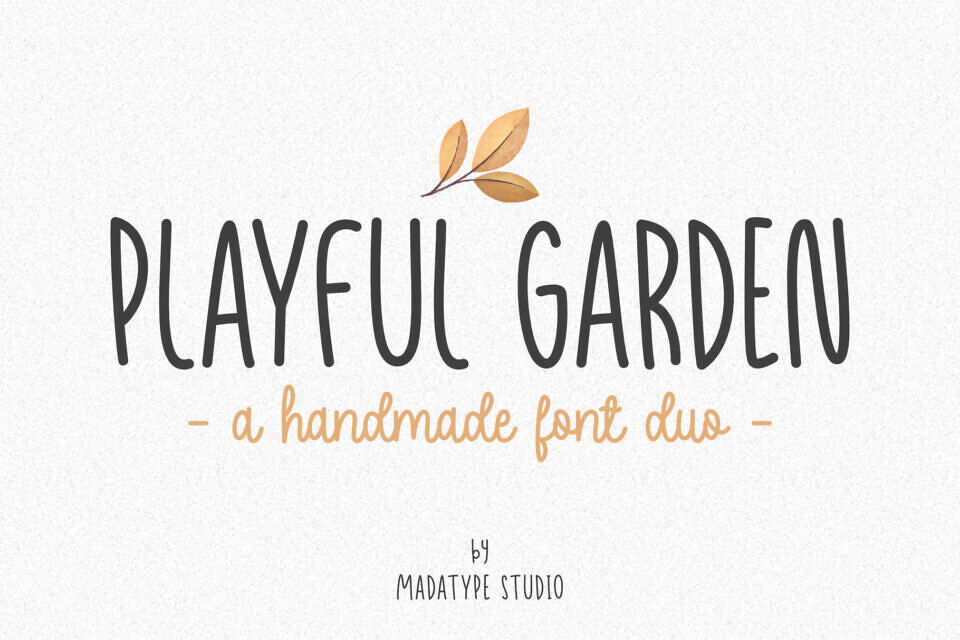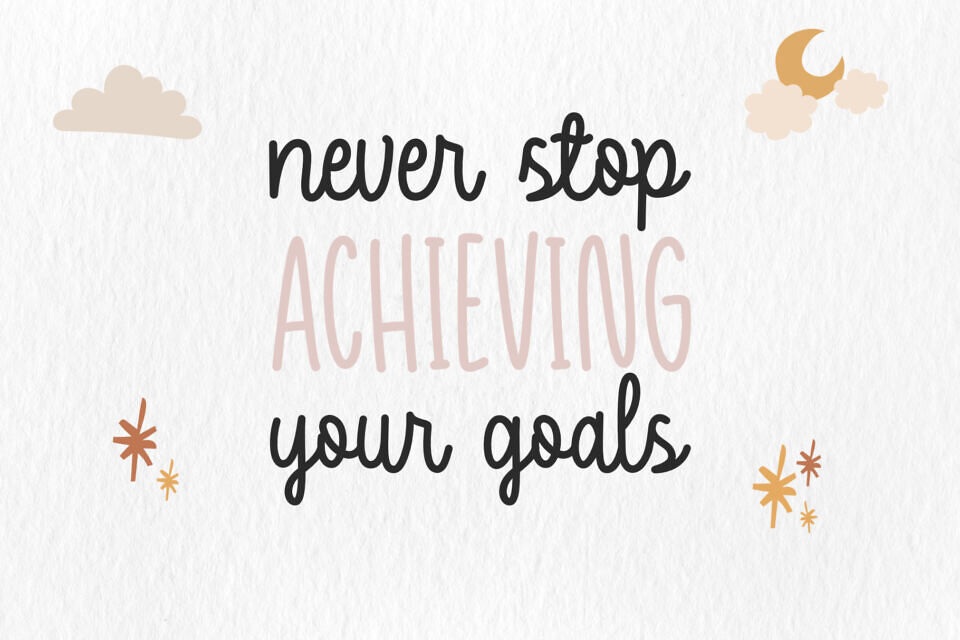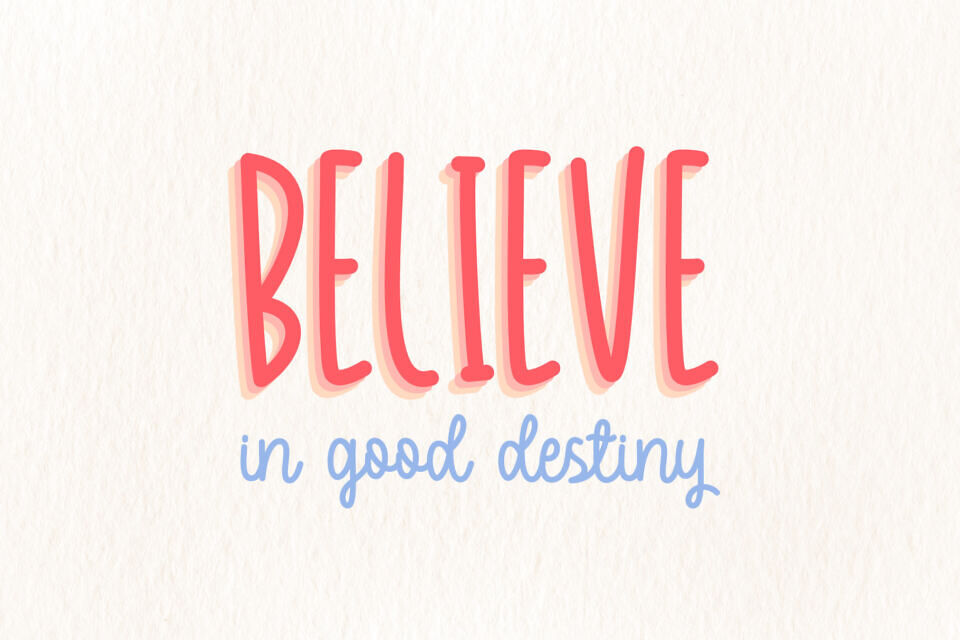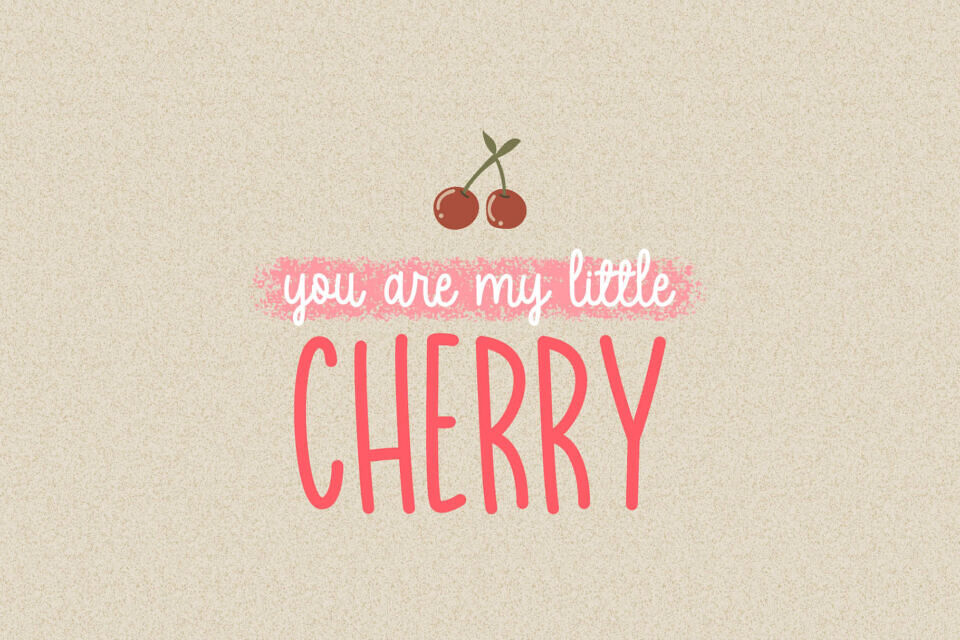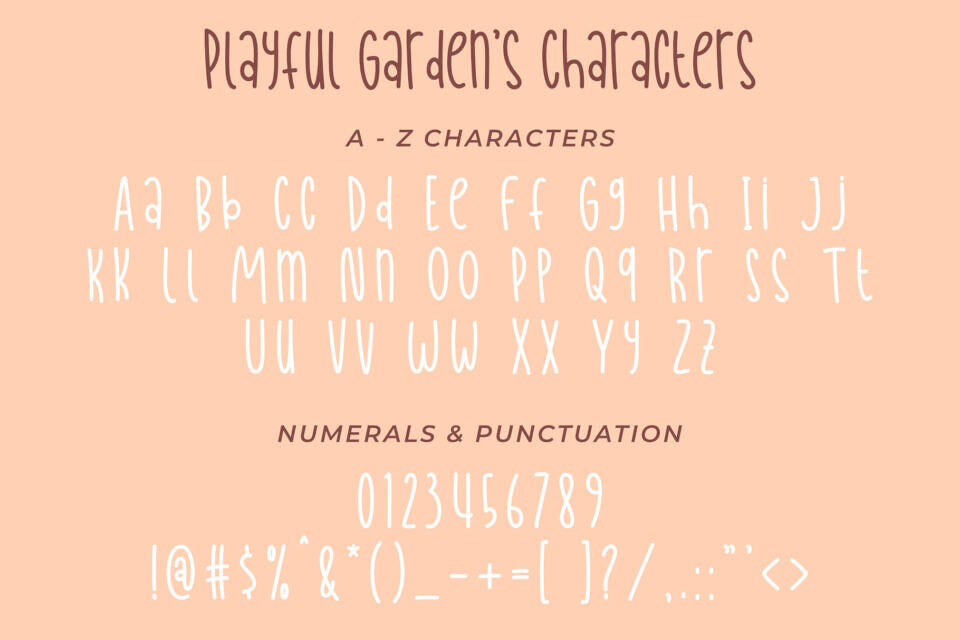
Playful Garden is a charming handwritten font duo designed to bring joy and creativity to your projects. This set includes both Playful Garden and Blue Lake fonts, offering a perfect mix of casual script and handwritten styles.
Packed with alternates and ligatures, it gives you endless flexibility for unique designs. Ideal for logos, posters, flyers, banners, invitations, and social media graphics, this playful font duo adds a lively, whimsical touch while keeping your typography fresh, modern, and engaging.